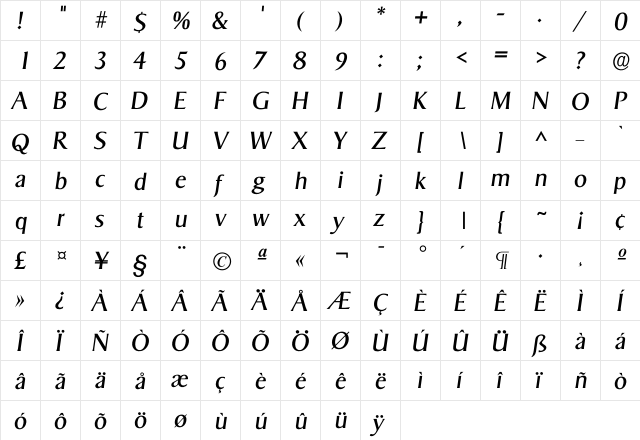
Isigvar Regular
Design Context for Isigvar Typeface
Isigvar offers clean, dependable letterforms without strong stylistic allegiance, making it a practical choice for designers who need flexibility.